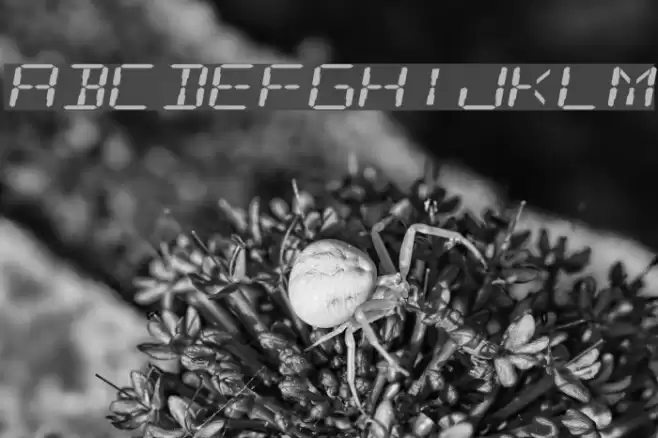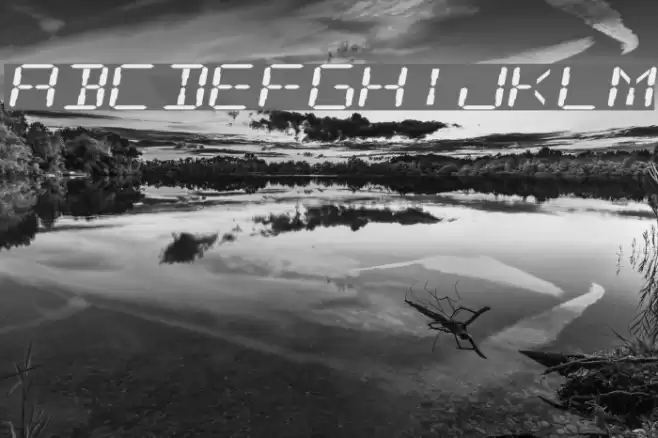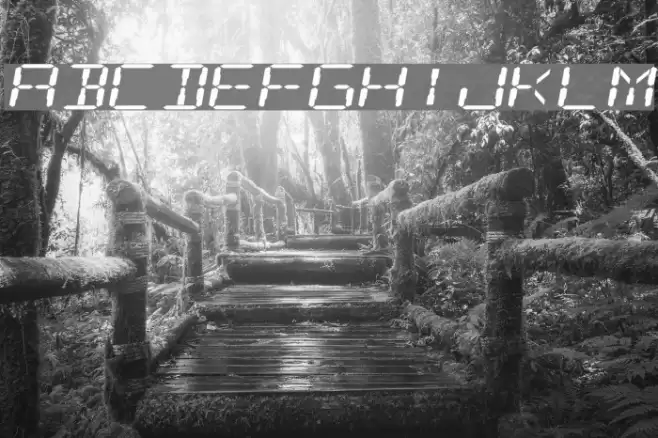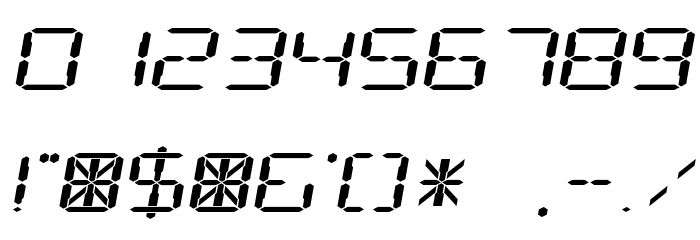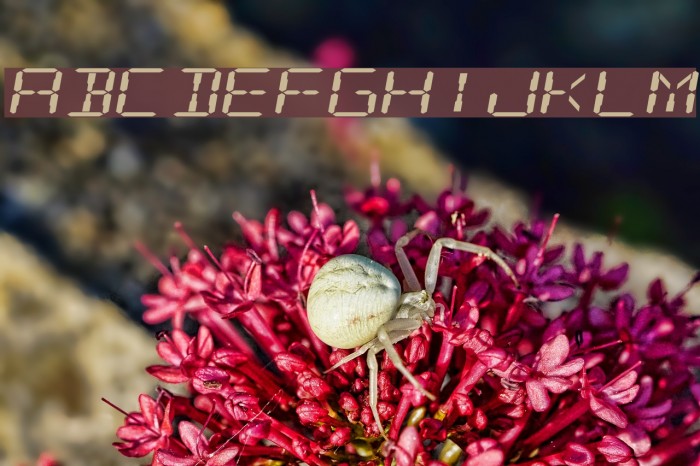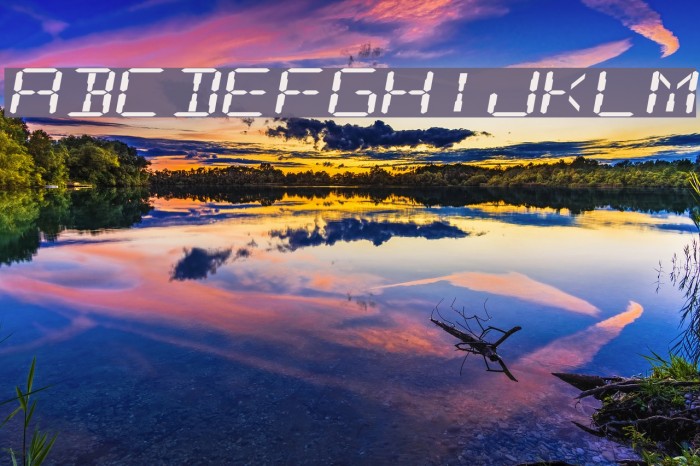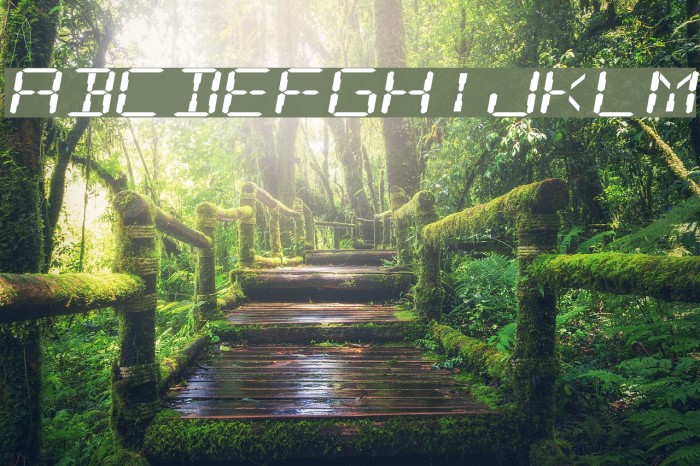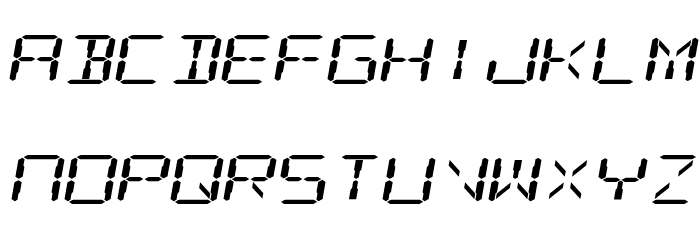
Digital Readout Expanded Font
Digital Readout Expanded Description
This font is reminiscent of digital displays, featuring a segmented style that mimics the appearance of LED or LCD screens. Each character is composed of distinct segments, creating a geometric and technical look. The uppercase and lowercase letters, as well as numbers, maintain a consistent design, emphasizing clarity and readability. The font's angular and mechanical aesthetic makes it ideal for conveying a sense of technology and modernity. Special characters are also designed in a similar segmented style, ensuring uniformity across all glyphs.
A segmented, digital-style font inspired by LED displays from Futuristic fonts.
- Proposed Projects: Ideal for digital clocks, tech-themed posters, video game interfaces, and any project requiring a futuristic or technological feel.